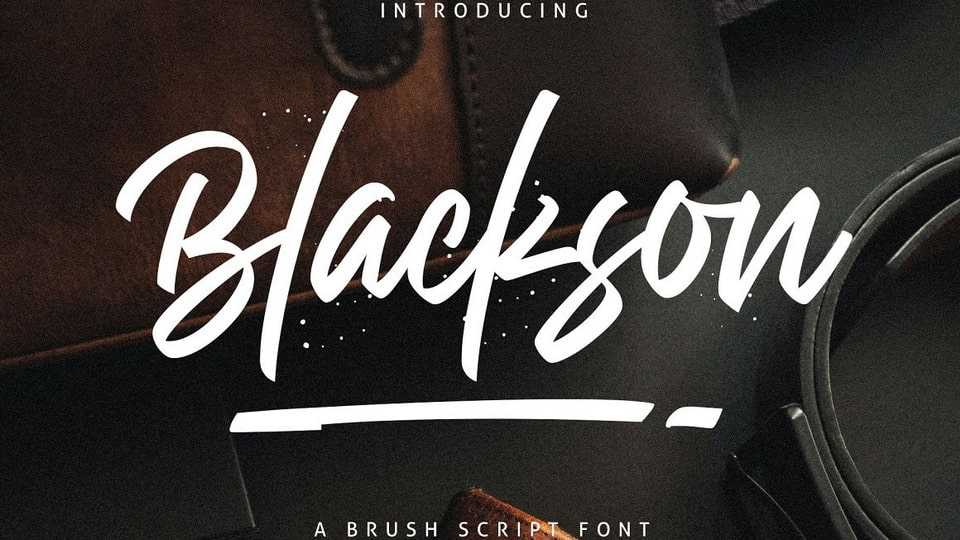
Download Blackson font, an elegant, urban-style brush handwriting typeface. It’s specifically designed to maximize your design projects that require a dynamic and distinctive.